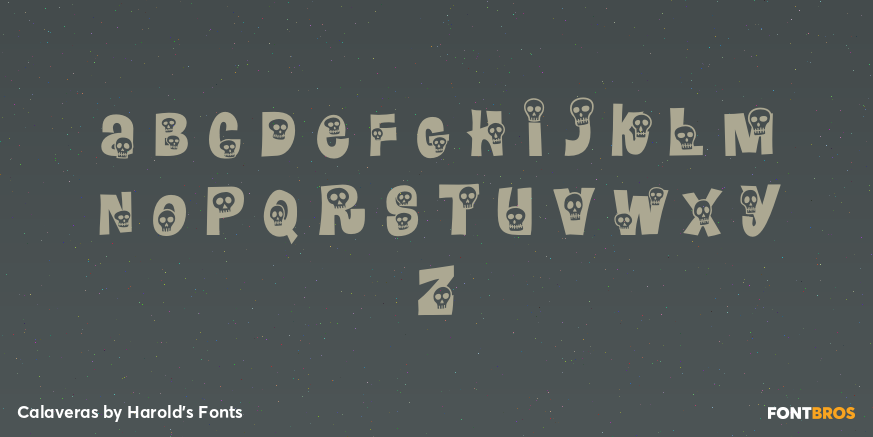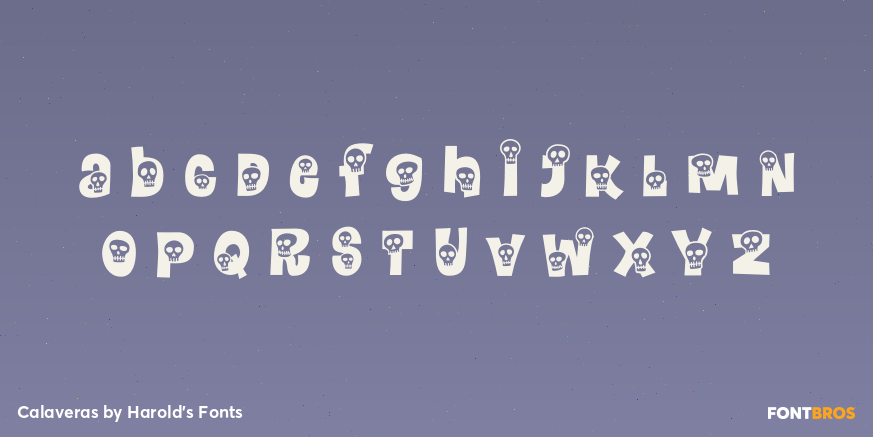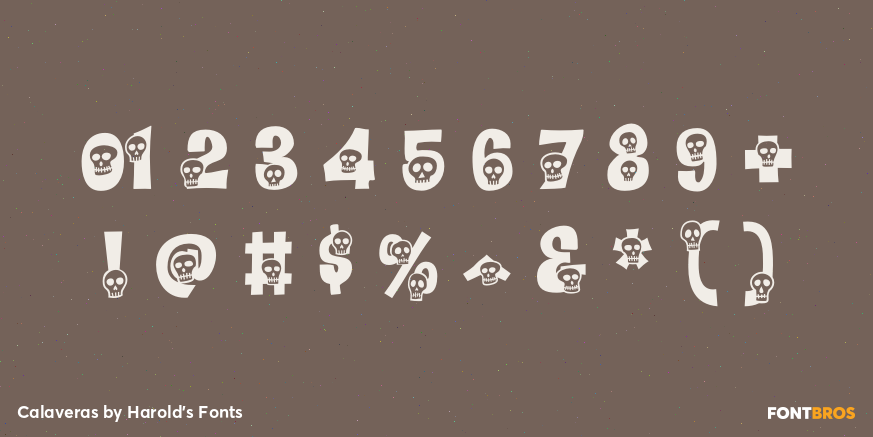
Calaveras
Font Family by Harold's Fonts
CALAVERAS is a take-off of the classic 1960s flower font Daisyland. In redrawing the letters, I’ve kept the basic shapes, added more variants, and swapped out the flowers for cartoon skulls to create a mix of happy and spooky. A memento mori font, great for Halloween, Día de los Muertos, or any time.